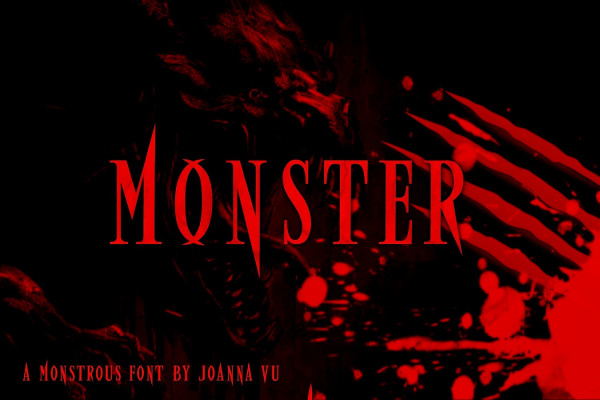
MONSTER TYPEFACE
Monster Typeface, A modern, “monstrous” font inspired by … well, monsters, fangs and fantasy. It features numbers, special characters and Greek letters.